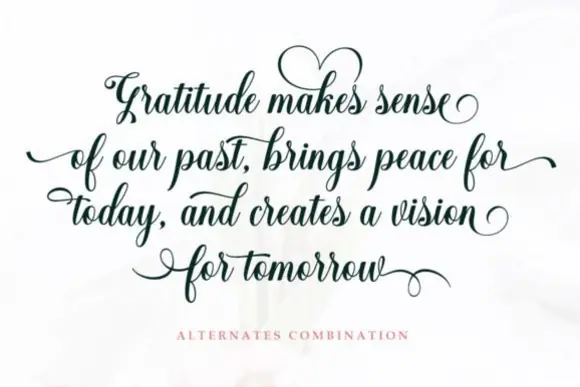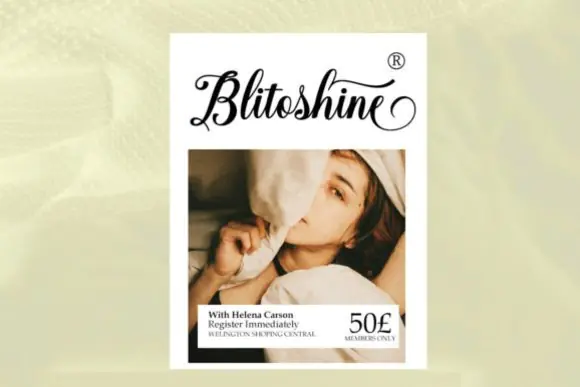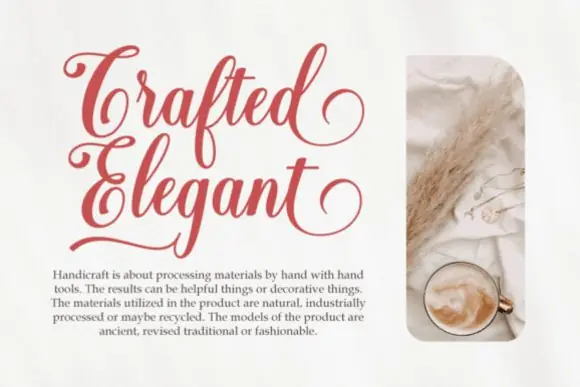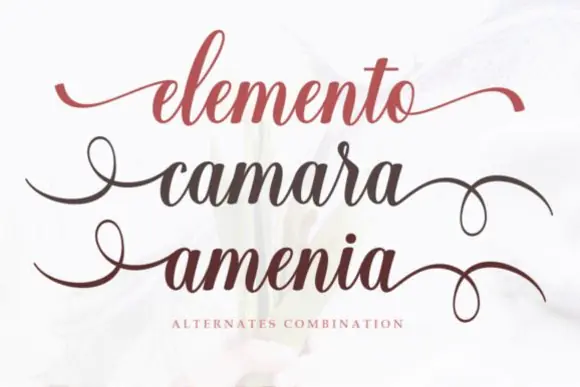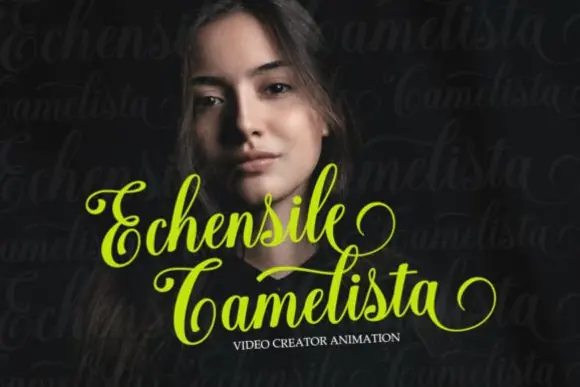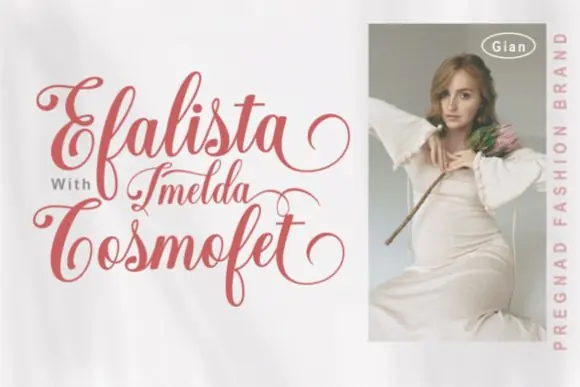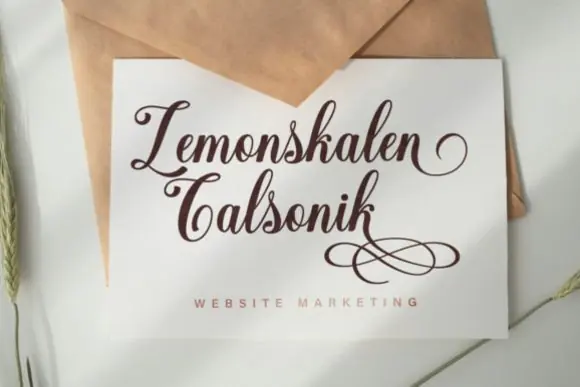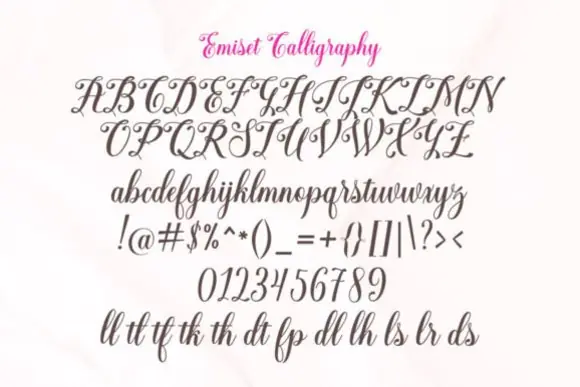
Create graceful, natural, and elegant designs with Emiset Calligraphy Font, a gorgeous handwritten script typeface designed to bring beauty and sophistication to your creative projects. With its smooth handwritten style and refined calligraphy feel, this font is perfect for designs that need a personal, artistic, and romantic touch.
Emiset Calligraphy is ideal for designers, wedding creators, boutique brands, small business owners, crafters, and digital product sellers who want to create authentic and visually appealing typography. Its elegant handwritten look works beautifully for wedding invitations, logos, branding, stationery, greeting cards, product labels, packaging, social media graphics, quote designs, book covers, and personalized gifts.
This font can transform simple words into beautiful design elements, making it a strong choice for projects that require charm, elegance, and a handcrafted feel.
Design Style:
Natural, elegant, handwritten, calligraphy, romantic, graceful, authentic, artistic, feminine, refined, smooth, stylish, decorative, and sophisticated.
Use Emiset Calligraphy Font to give your designs a beautiful handwritten personality and create typography that feels elegant, authentic, and professionally crafted.